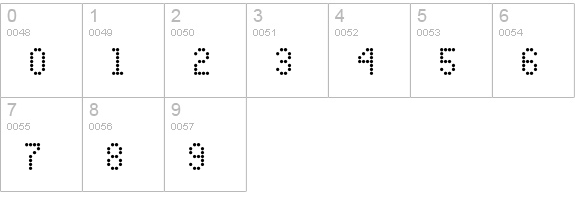
LightEmittingDiodes Font Details
LightEmittingDiodes font is a stunning and modern typeface that captures the essence of futuristic design. With its sleek lines and sharp edges, this font radiates a sense of innovation and technology. The LightEmittingDiodes font is perfect for projects that require a contemporary and cutting-edge look. The best part is that LightEmittingDiodes font is completely free to download at FontsMarket.com. You can easily access this font and enhance your designs with its unique style. Whether you're working on a website, poster, or logo, LightEmittingDiodes font will add a touch of sophistication and flair to your project. Don't miss out on the opportunity to use this striking font in your next design endeavor. Download LightEmittingDiodes font now and let your creativity shine!